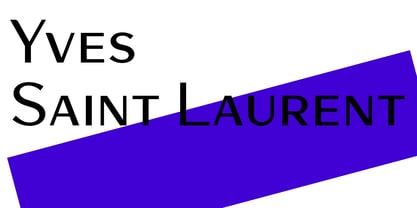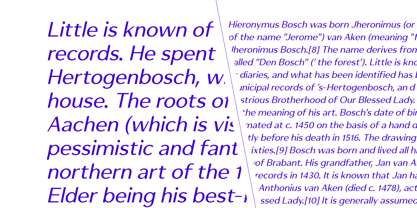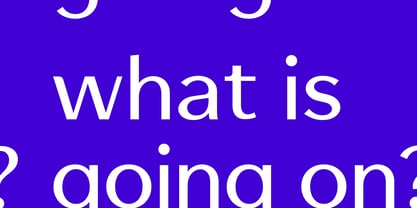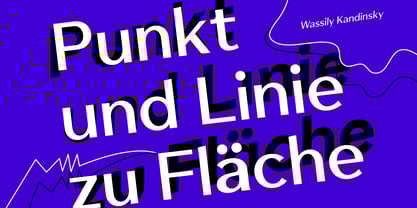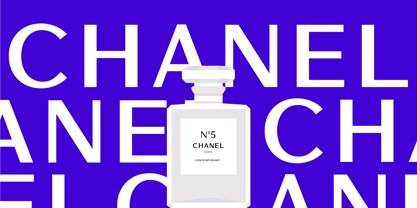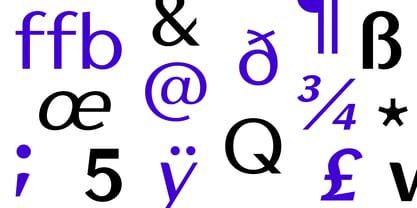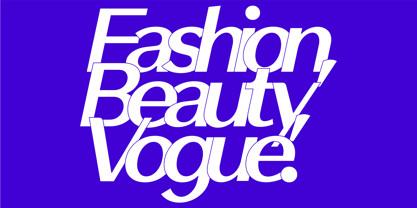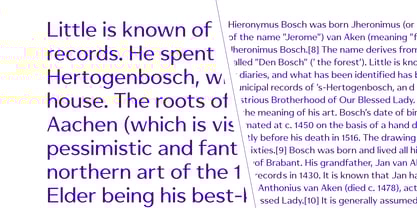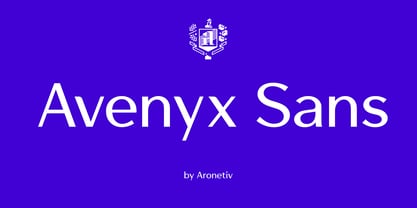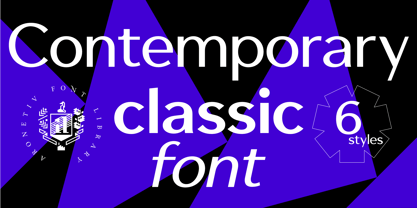
Avenyx Sans
by Aronetiv
The Avenyx Sans Font Family was designed by Aleksey Popovtsev and published by Aronetiv. Avenyx Sans contains 6 styles and family package options. More about this family
Avenyx Sans is an elegant high-contrast sans-serif typeface that seamlessly combines the clarity of a grotesque with refined, graceful proportions. Drawing inspiration from the classic Optima-style aesthetic, this typeface showcases smooth stroke modulation and soft, sculptural letterforms while remaining completely serif-free. Its balanced contrast and delicate shapes impart a sophisticated and contemporary personality. Avenyx Sans exudes a light, stylish, and expressive quality, making it particularly well-suited for the fashion industry, beauty brands, luxury packaging, editorials, and modern branding. This typeface harmoniously blends minimalism with a subtle sense of elegance, allowing it to shine in both headlines and refined typography compositions.
Aronetiv was founded in 2019 in Kyiv. It employs one person: artist and graphic designer Oleksii Popovtsev. Once Oleksii said that he likes to observe how a letter is born on the border of black and white, as shape and counter-shape create an image. This is his search and inspiration for all his works. Aronetiv develops fonts with Cyrillic and alphabets of Eastern Europe languages, to form a common European culture both in Ukraine and abroad.